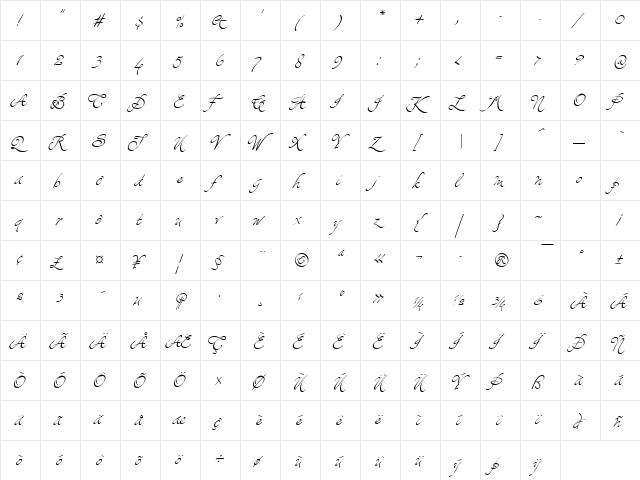
Christophs Quill ITC Regular
| Foundry | International Typeface Corporation |
| Designer | Russell Bean |
Design Context for Christophs Quill ITC Typeface
Christophs Quill ITC takes a measured approach to typography — its balanced proportions and neutral character make it a reliable workhorse for both digital and print work.